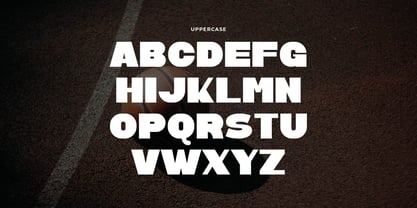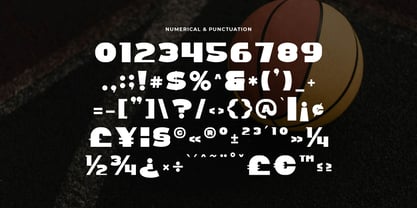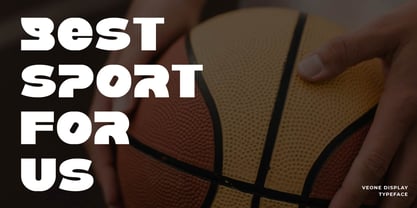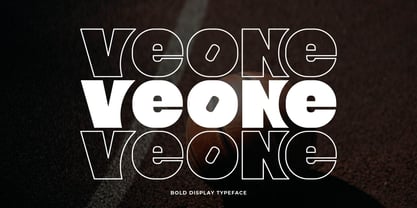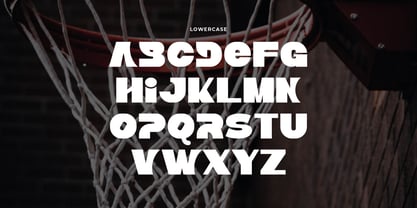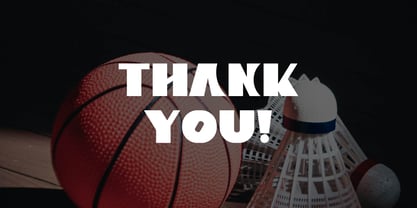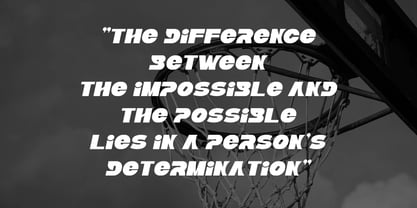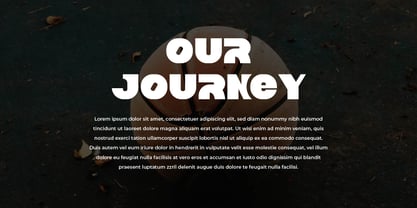
Veone
by Artiveko
The Veone Font Family was designed by Iwan Alwan and published by Artiveko. Veone contains 2 styles and family package options. More about this family
Veone is a bold and strong display typeface designed to command attention. With its heavy weight, solid structure, and confident letterforms, Veone delivers maximum visual impact in headlines, posters, logos, packaging, and branding projects that demand presence. Built for high-contrast layouts and large-scale compositions, Veone maintains clarity while projecting power and authority. Its compact spacing and strong silhouette make it ideal for modern campaigns, sports visuals, streetwear branding, music covers, and statement typography. Veone isn’t just bold — it’s unapologetically dominant. When your design needs strength, Veone speaks loud and clear, making it a perfect choice for impactful branding and eye-catching designs.
Designers: Iwan Alwan
Current Foundry: Artiveko
Artiveko is a font design team based in Indonesia, comprised of several talented font designers who commenced their careers in the font design industry in 2020. With a dedicated focus on crafting fonts, the team members bring their collective expertise and passion to every project they undertake. Situated in Indonesia, Artiveko draws inspiration from the vibrant cultural landscape of the region, infusing their creations with unique flavors and aesthetics.The team's font collection encompasses a diverse range of styles, including serif, sans serif, handwritten, and script typefaces. Each typeface is meticulously crafted to meet the demands of modern design while offering versatility and functionality across various applications. Whether it's the classic elegance of serif fonts, the contemporary appeal of sans serif designs, the personal touch of handwritten scripts, or the expressive flourishes of script fonts, Artiveko ensures that every font reflects their dedication to quality and innovation.Artiveko's fonts have garnered recognition and acclaim, with their works being featured on prominent social media platforms like Creative Market. Through these platforms, the team has been able to connect with a global audience of designers and typographers, further amplifying their reach and influence in the industry. Their fonts are celebrated for their impeccable craftsmanship, attention to detail, and ability to elevate design projects with style and sophistication.As Artiveko continues to evolve and expand its font collection, the team remains committed to pushing the boundaries of typography and setting new standards of excellence. With a relentless focus on creativity, innovation, and collaboration, Artiveko strives to inspire and empower designers around the world with their distinctive and versatile font designs.